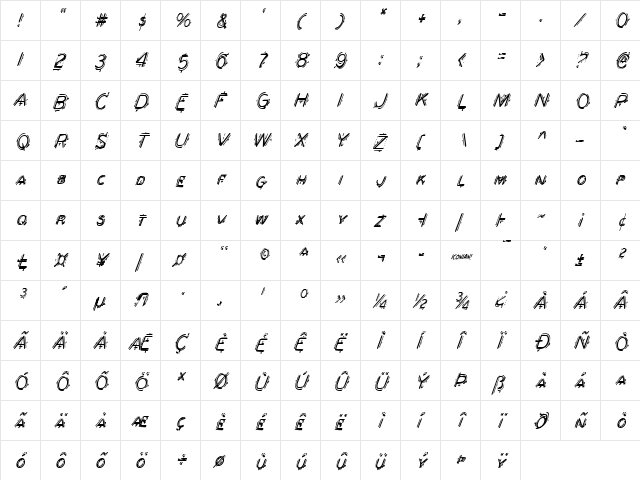
Berserker Condensed Italic Font Preview
Design Context for Berserker Condensed Italic Typeface
Berserker Condensed Italic is a composed and adaptable typeface that performs quietly and consistently across a wide range of design contexts. Its italic angle brings a sense of urgency and motion to the letterforms. The condensed width makes it efficient for tight spaces without sacrificing legibility.